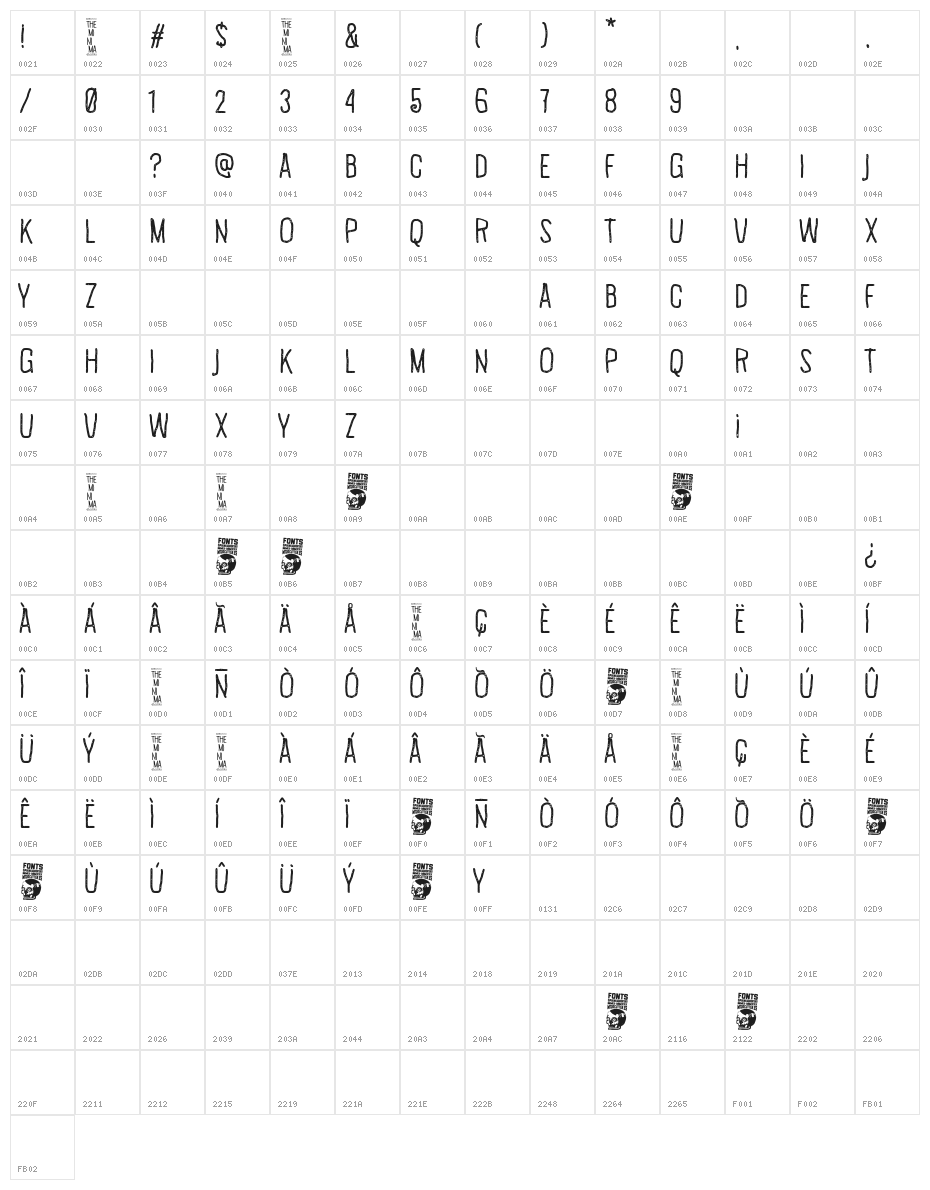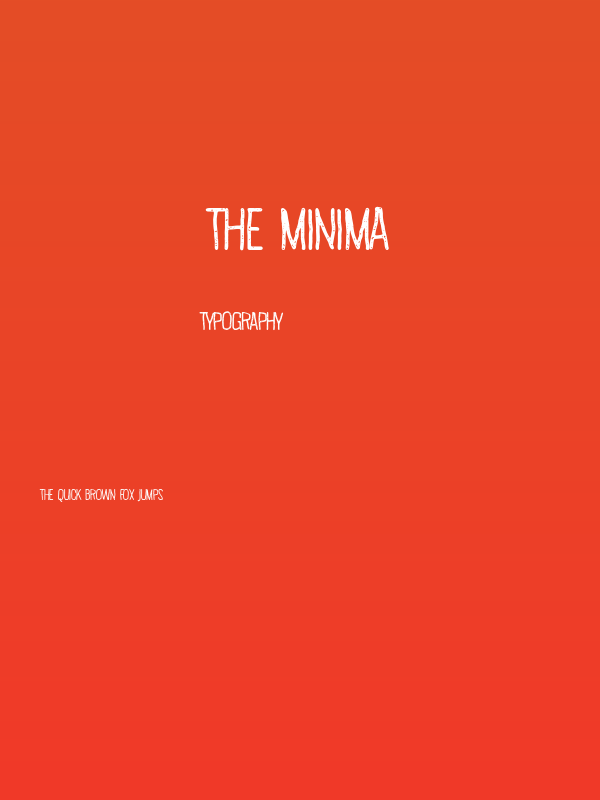
The Minima Font
The Minima Description
This font features a hand-drawn, textured appearance with a playful and slightly distressed look. The characters are elongated and narrow, giving them a unique and quirky style. The uppercase and lowercase letters maintain a consistent height, while the numbers and special characters complement the overall design. The font's irregularities and rough edges add a rustic charm, making it suitable for creative and informal projects. Its distinct style can evoke a sense of whimsy and individuality, perfect for designs that aim to stand out.
| Proposed Projects | Ideal for posters, greeting cards, children's books, and creative branding projects. |